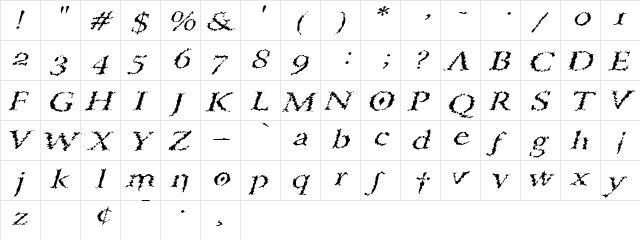
PorcupineRomanExtended Italic
Design Context for PorcupineRomanExtended Typeface
PorcupineRomanExtended is a composed and adaptable typeface that performs quietly and consistently across a wide range of design contexts. The dynamic lean of this cut emphasises speed and emphasis in any layout.
Pro Tip: Use PorcupineRomanExtended for emphasis, pull quotes, and subheadings where its slanted energy can add rhythm to the layout.